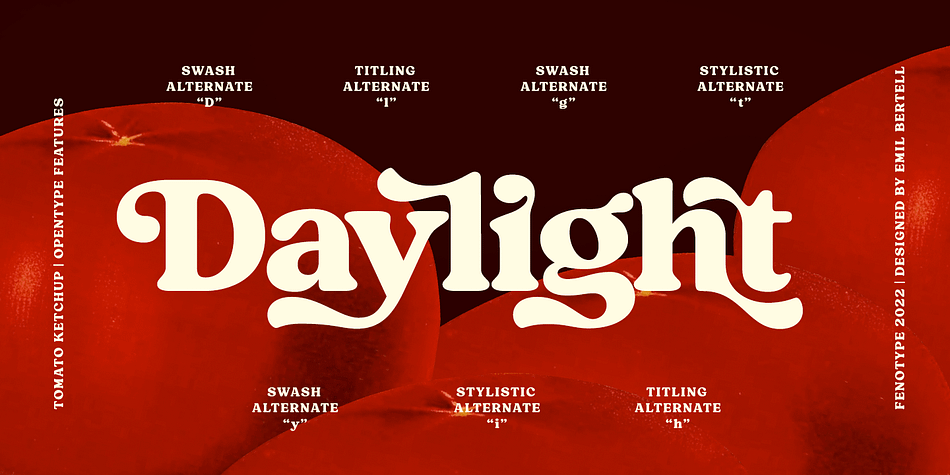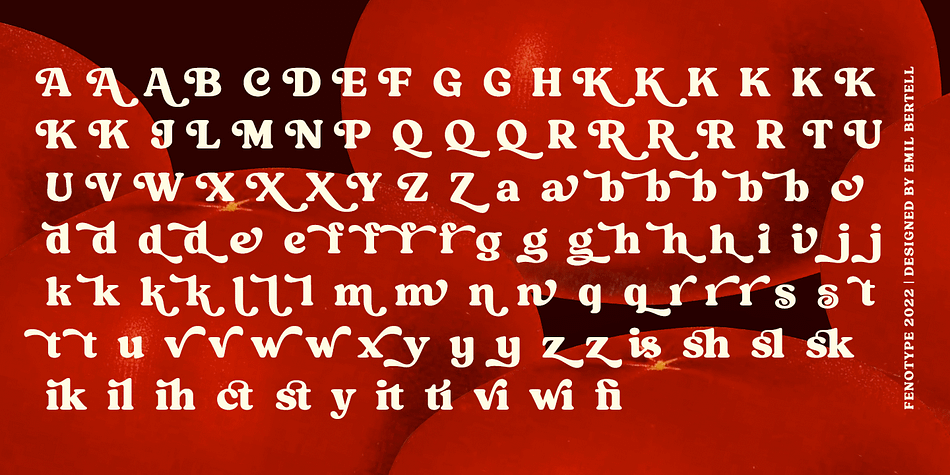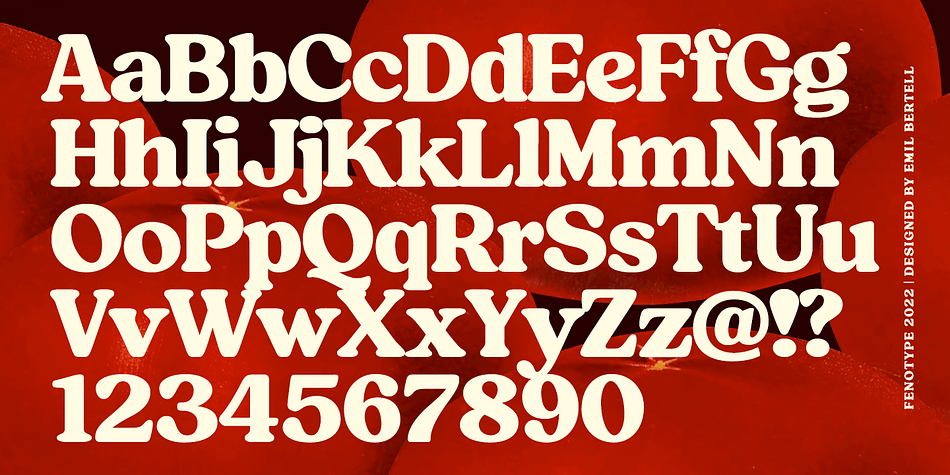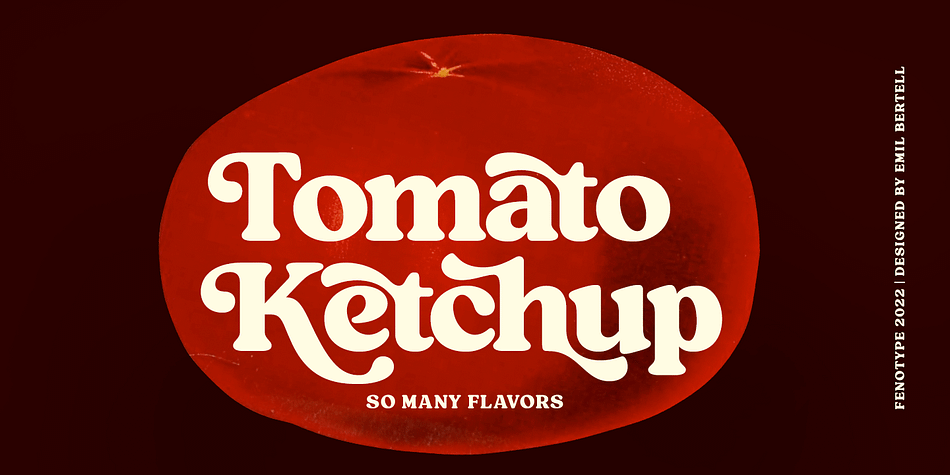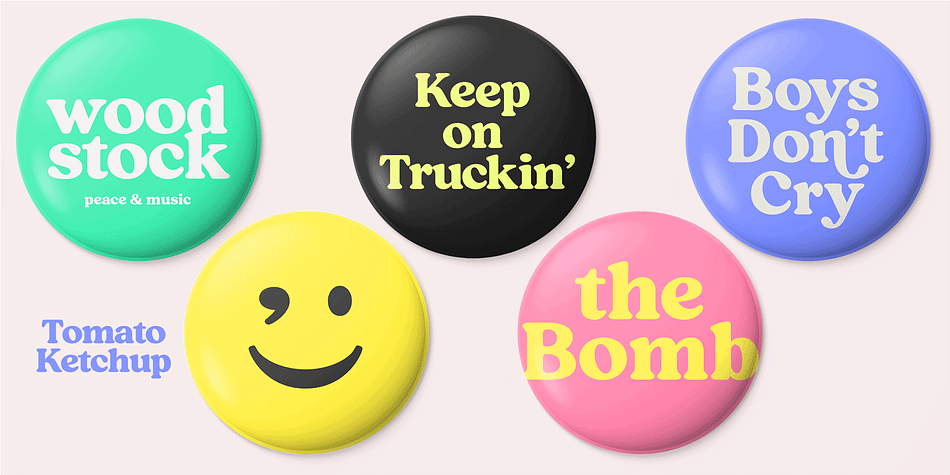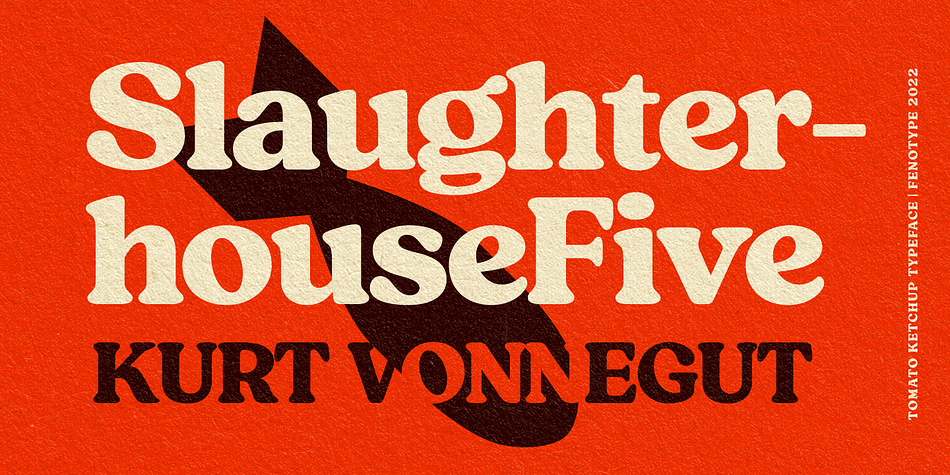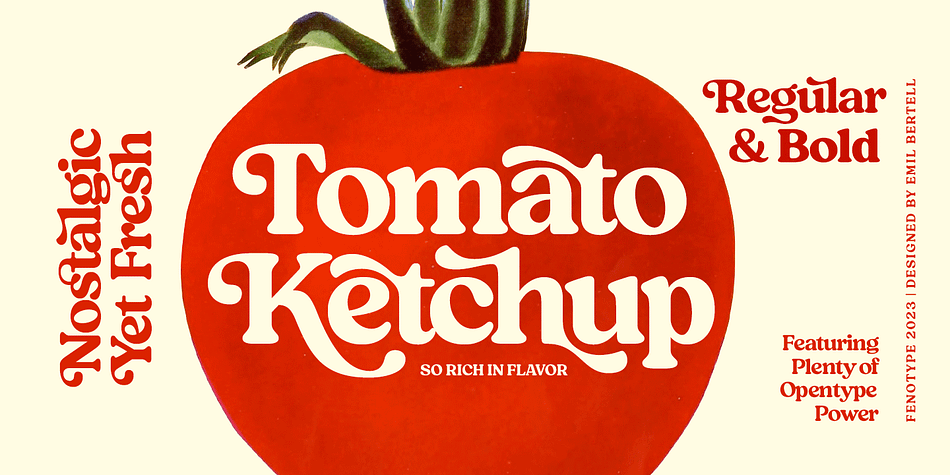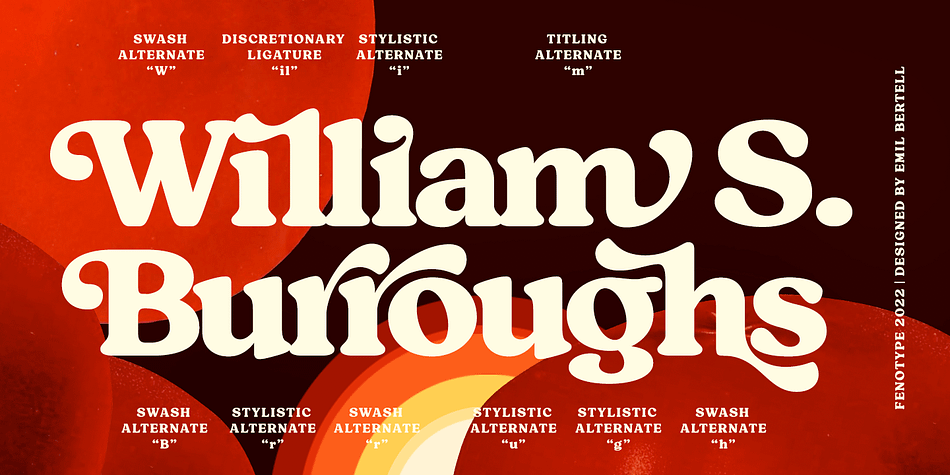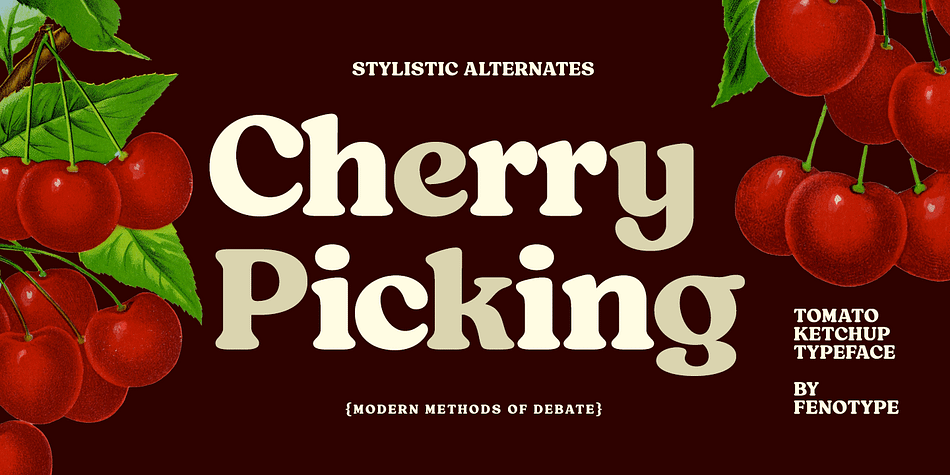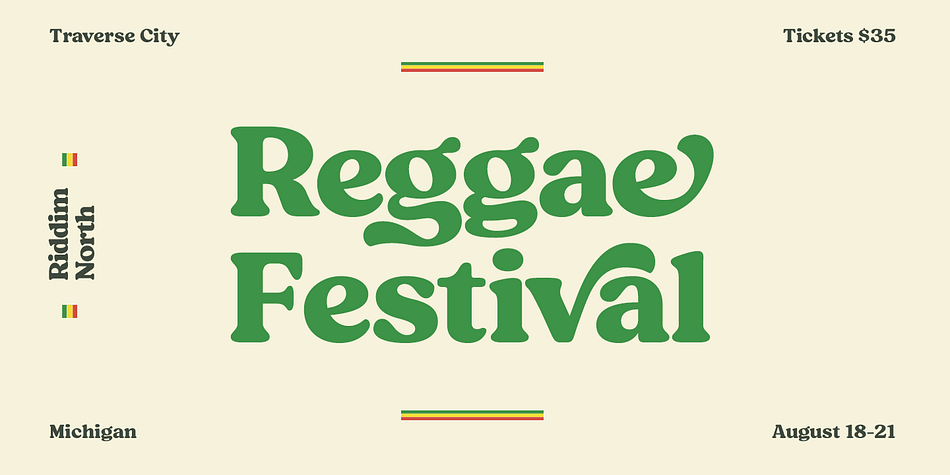
Designed by Emil Bertell, Tomato Ketchup is a display serif and retro font family published by Fenotype.
Tomato Ketchup is a bold vintage style serif font with a nonchalant charm and sturdy confidence. Tomato Ketchup has a recognizable flavour and a reminiscence of familiar warm nostalgic feeling. Tomato Ketchup is equipped with Contextual, Swash, Stylistic and Titling alternates as well as Discretionary Ligatures and even more extra alternates. All these features can be accessed by OpenType controls or straight from Character or Glyphs window. The font is PUA encoded so you can use the extra glyphs in most graphic design softwares. Contextual Alternates are automatically on and they simply do small changes to prevent certain character collisions. Other features are optional and can be used for bolder design solutions.
Tomato Ketchup is a great typeface for contemporary graphic design with that certain feeling of familiarity. It works well on logos, packaging, restaurant graphics, or any display use, as well as in headlines or shorter texts. Try Tomato ketchup with reduced tracking for tighter word images, or if you want to use it in really small sizes add some tracking.